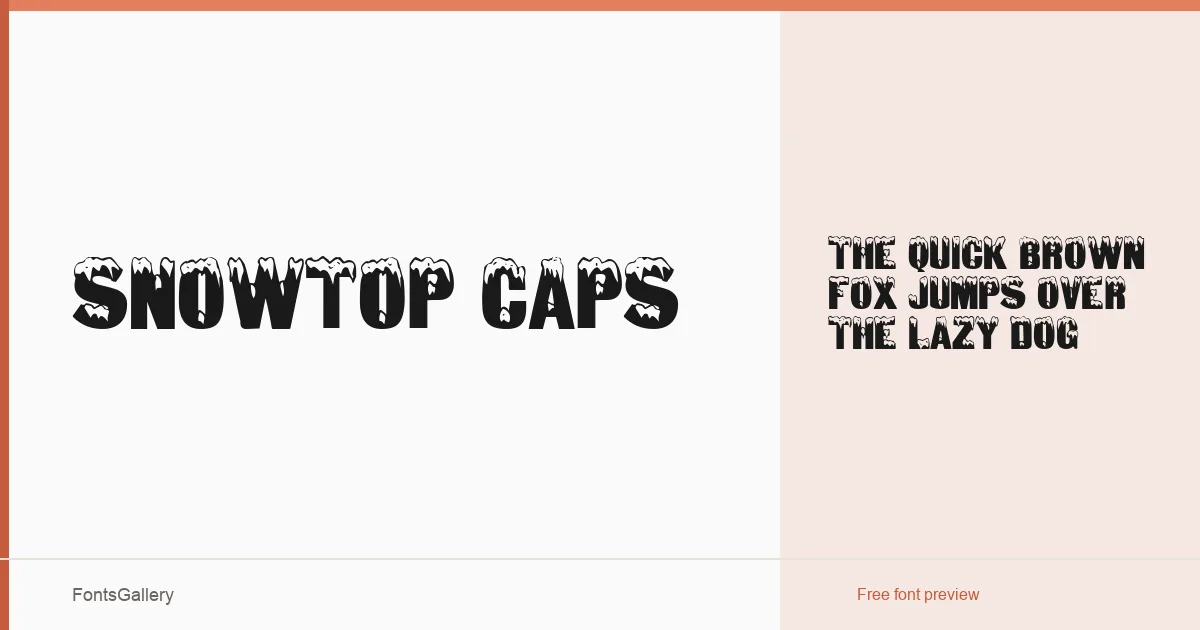
Snowtop Caps is a bold display typeface from Typographer Mediengestaltung, crafted to make a strong, commanding impression in any visual project. With its vintage-inspired character and rugged, grunge-infused aesthetic, it carries a timeless yet raw energy that stands out in a crowd. This typeface is built for designers who want to communicate power and authenticity through their typography.
Snowtop Caps features letterforms rooted in a vintage and rustic tradition, delivering a bold, weathered quality that evokes an authentic, handcrafted feel. The grunge elements woven into its character set give each letter a sense of texture and depth, reinforcing its display-focused design. Its strong presence and visual weight make it immediately eye-catching, perfectly suited to headlines and statement pieces.
Snowtop Caps excels in high-impact applications such as logos, posters, headlines, branding materials, and t-shirt designs where bold, characterful typography is essential. Its rugged personality makes it especially effective for brands and projects that want to convey a vintage, authentic, or rebellious spirit. For a balanced typographic combination, consider pairing it with the clean neutrality of Helvetica or the complementary style of Aresink.